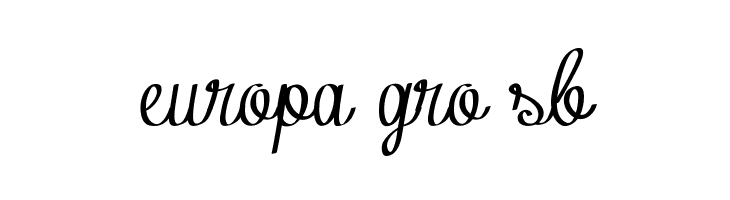
A rugged, distressed font with a bold, hand-drawn appearance.
A bold, geometric font with a modern, tech-inspired design.
A modern serif font with clean lines and a minimalistic design.
An elegant, flowing script font with intricate loops and swirls.
A playful, hand-drawn font with a sketch-like appearance.
A hand-drawn, sketch-style font with textured outlines.
A playful and whimsical font with bold, curvy elements and a decorative style.
A bold, retro-inspired font with a three-dimensional line effect.